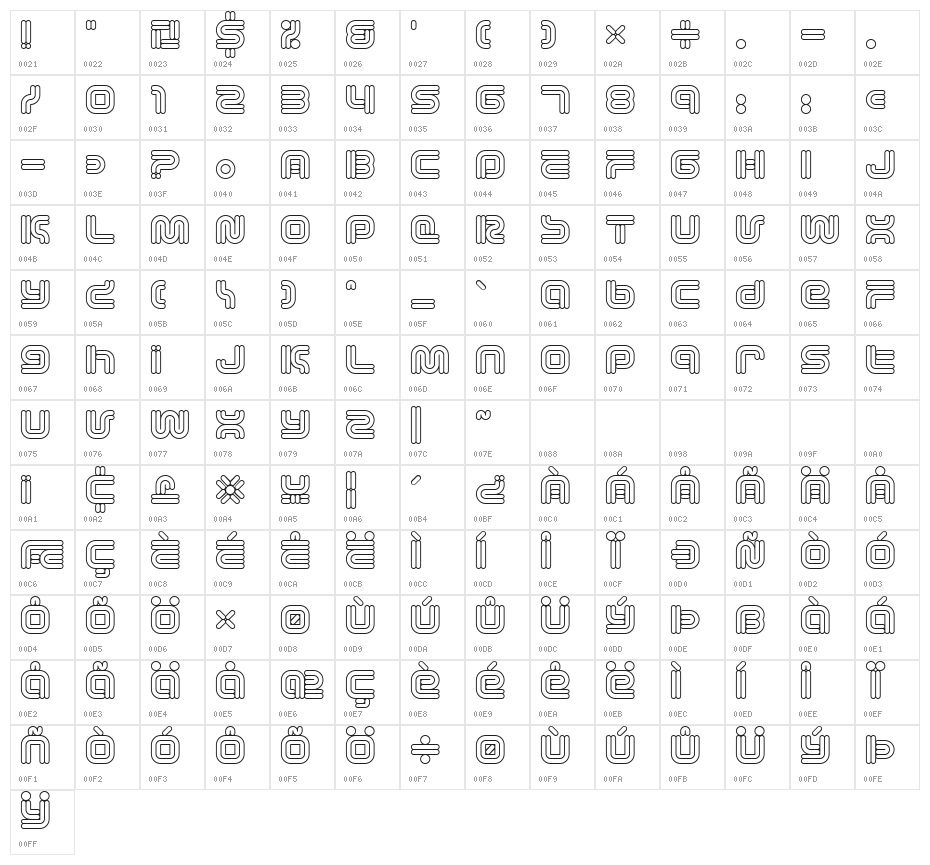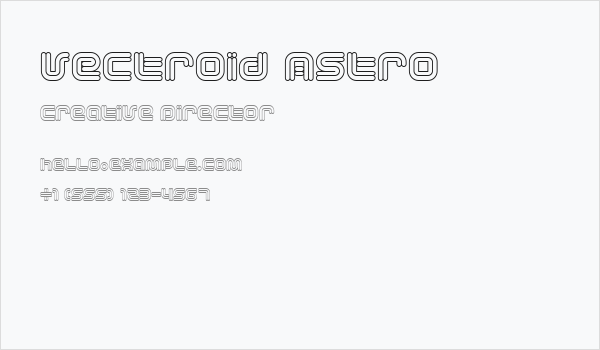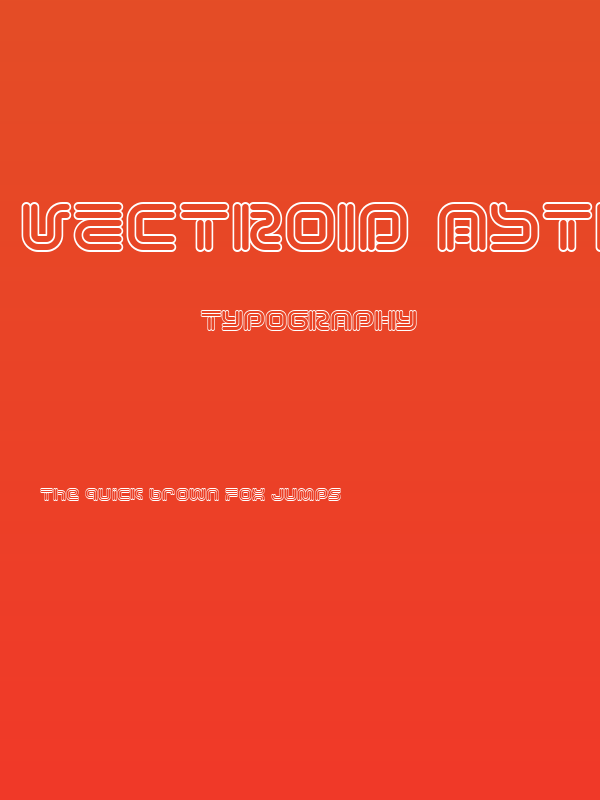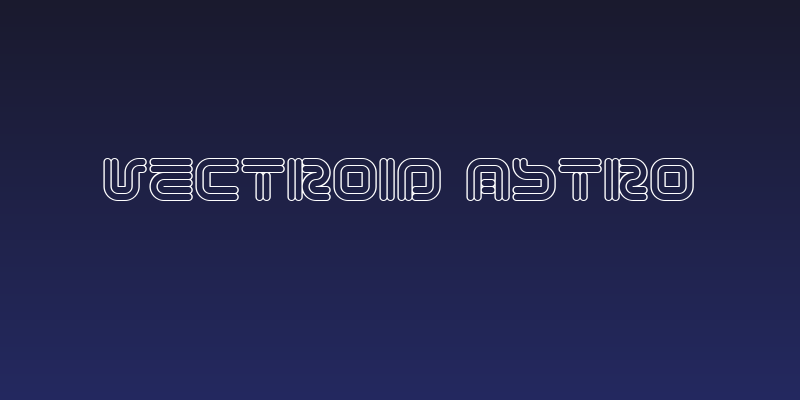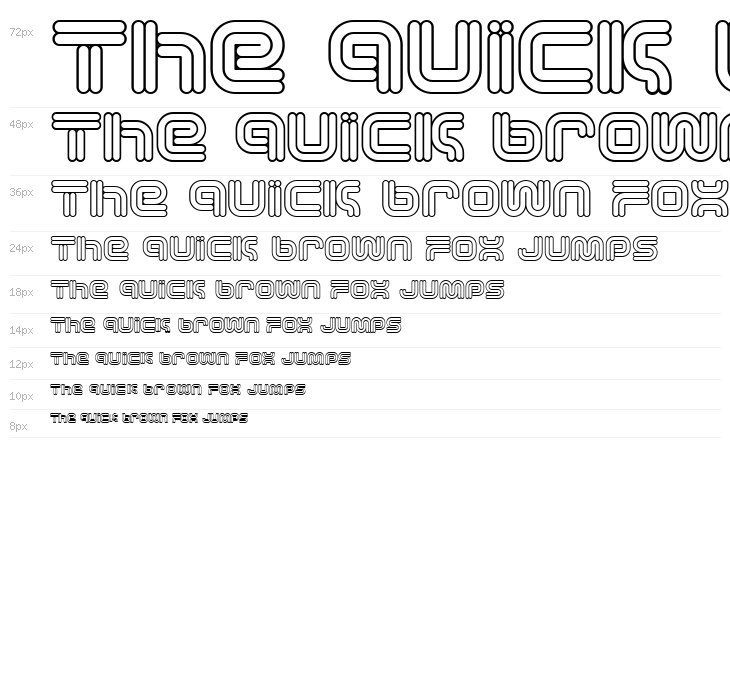
Vectroid Astro Font
Vectroid Astro Description
This font features a futuristic and geometric design with a distinct outline style. Each character is composed of multiple parallel lines that create a layered effect, giving it a three-dimensional appearance. The uppercase and lowercase letters maintain a consistent structure, while the numbers and special characters follow the same design principles. The font's unique aesthetic makes it stand out, with a focus on symmetry and balance. Its bold and decorative nature makes it suitable for projects that require a modern and eye-catching typeface.
| Proposed Projects | Ideal for sci-fi themed designs, tech branding, posters, and digital media projects. |